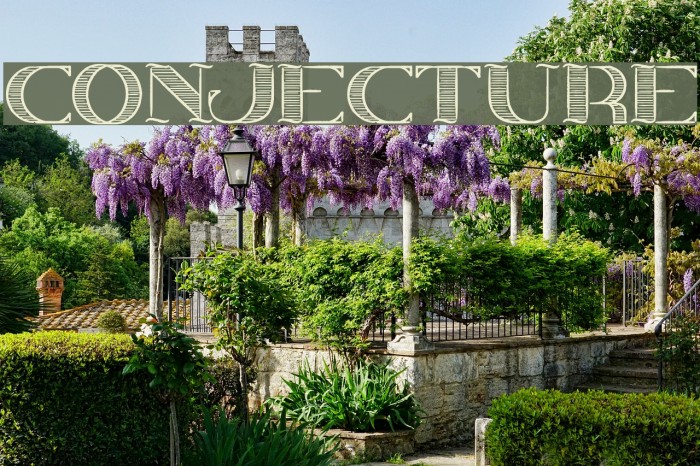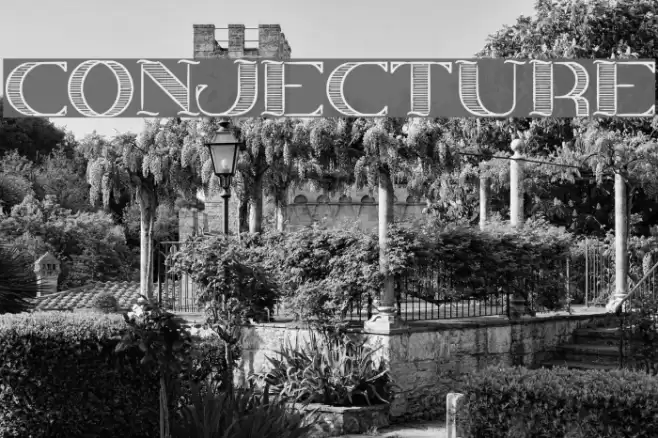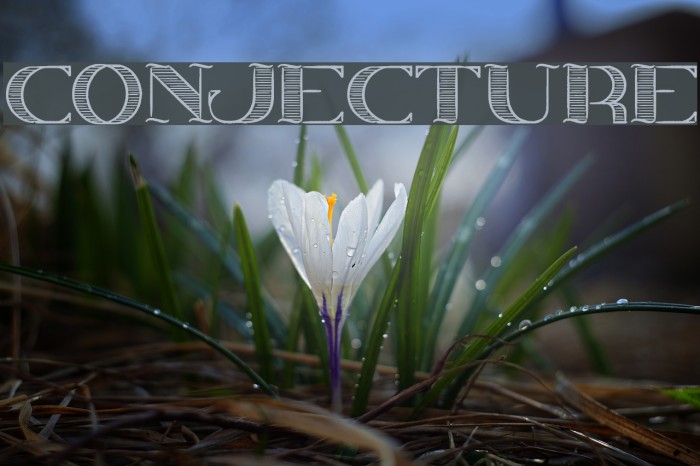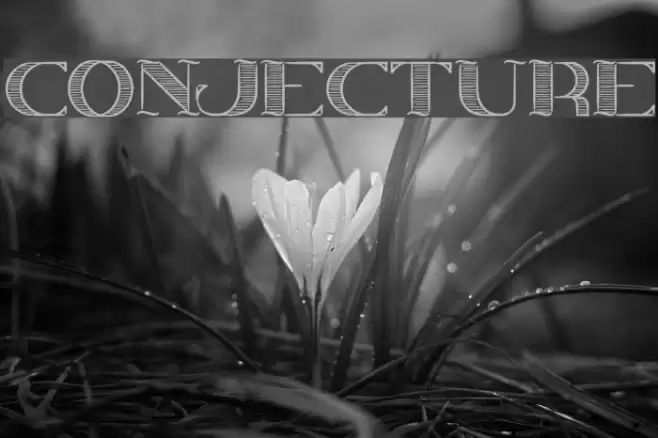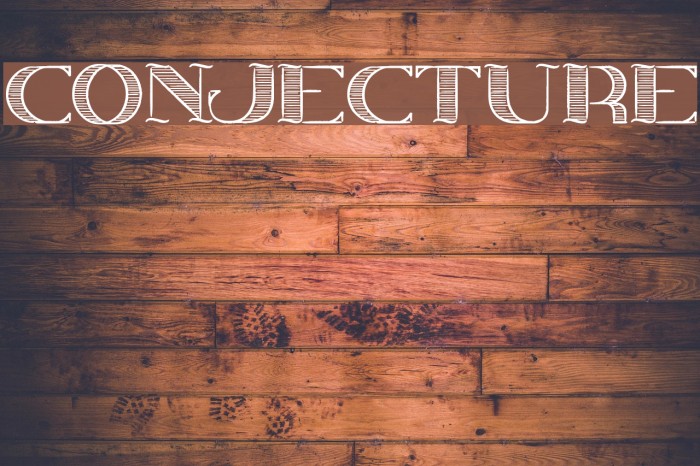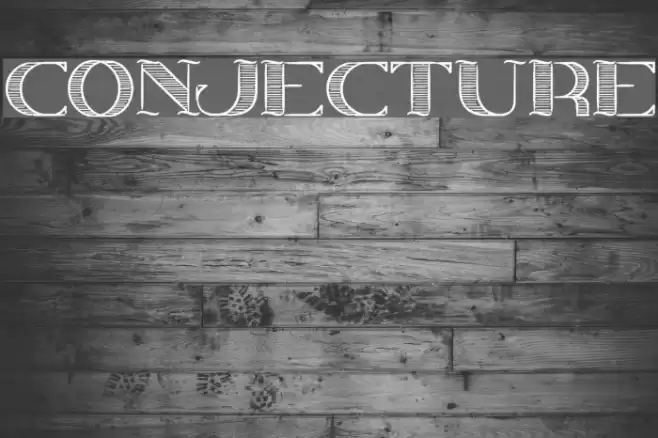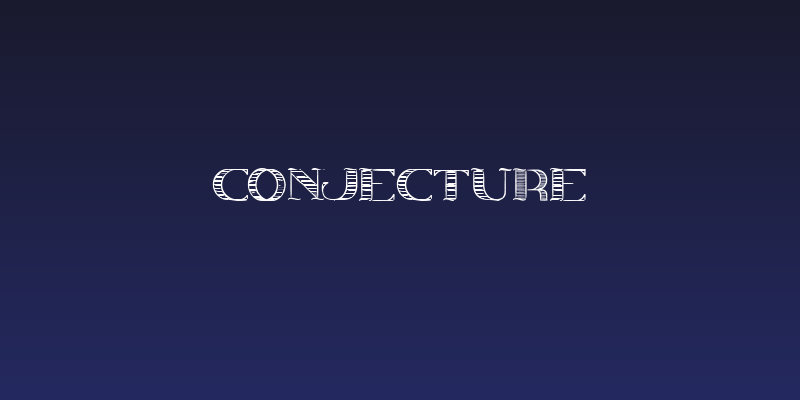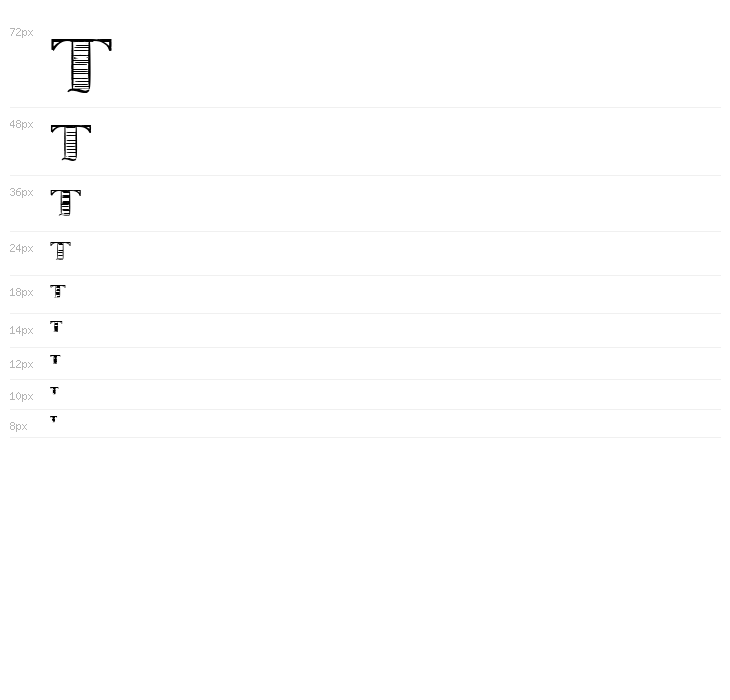
CONJECTURE Font
This font features a decorative and intricate design with a vintage flair. Each letter is adorned with horizontal lines that create a textured appearance, reminiscent of classic engraving techniques. The characters have a bold presence with sharp serifs and a distinct contrast between thick and thin strokes, adding to its ornate style. The overall look is both elegant and striking, making it suitable for projects that require a touch of sophistication and historical charm.
Overall StyleVintage
Proposed ProjectsIdeal for use in vintage-themed posters, book covers, branding for luxury products, and decorative signage.